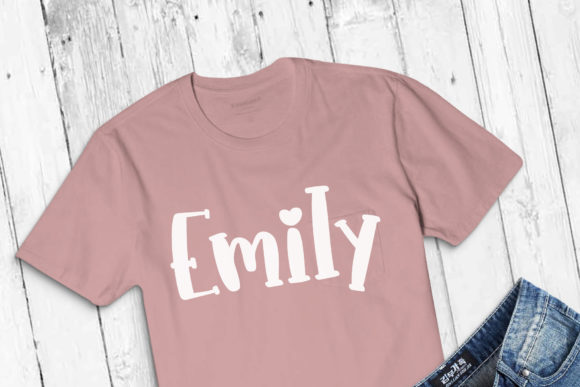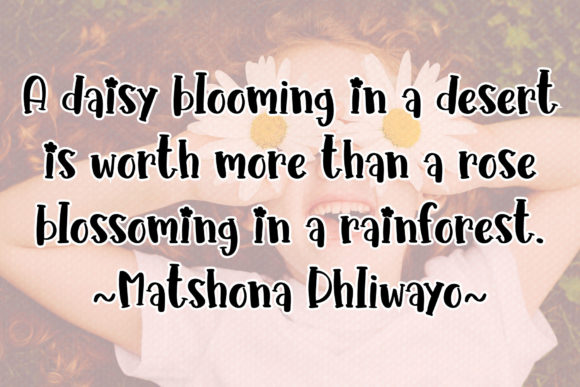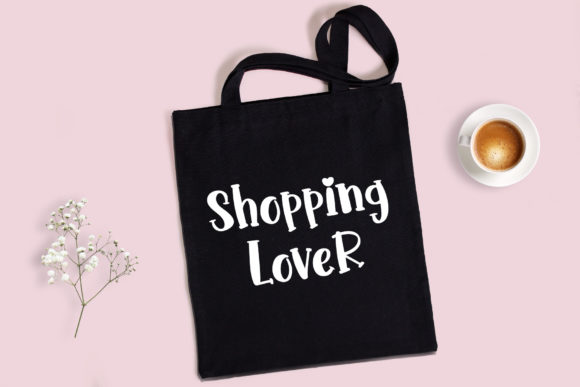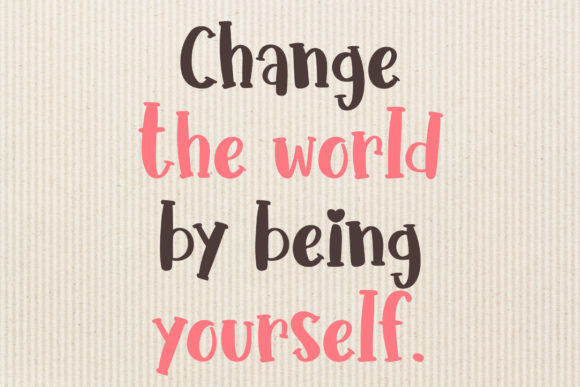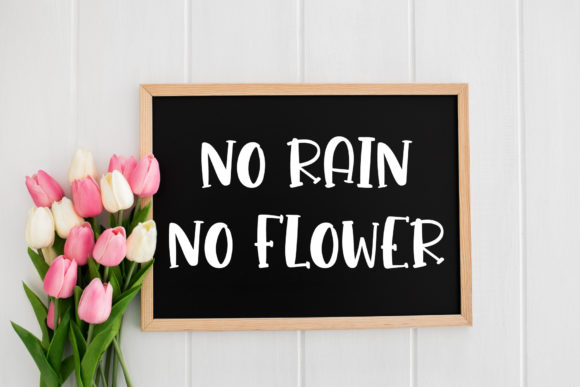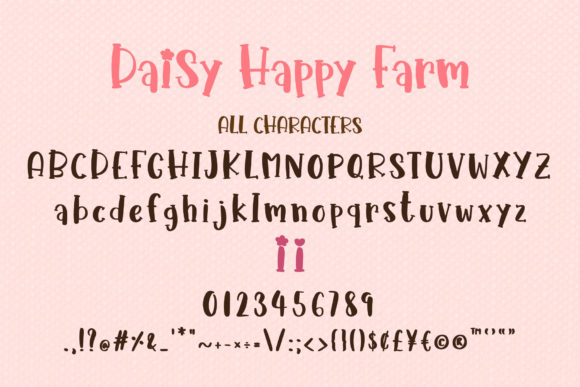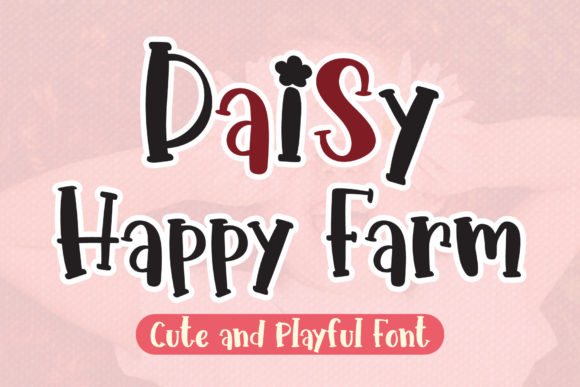
Daisy Happy Farm Font: The Perfect Addition to Your Design Toolbox
Are you a designer or crafter looking for a font that can add a touch of playfulness and quirkiness to your projects? Look no further than the Daisy Happy Farm font! This adorable serif font is perfect for creating logos, branding materials, posters, and DIY projects that require a friendly and approachable feel.
What Makes Daisy Happy Farm Font So Special?
Daisy Happy Farm is a cute and friendly serif font that is designed to bring a smile to your face. Its playful and quirky style makes it an excellent choice for designers and crafters who want to add a personal touch to their work. Whether you’re creating a logo for a children’s brand, designing a poster for a craft fair, or working on a DIY project, this font is sure to delight.
Key Features of Daisy Happy Farm Font
• Playful and Quirky Style: The Daisy Happy Farm font has a unique and playful style that sets it apart from other fonts. Its quirky charm makes it perfect for projects that require a friendly and approachable feel.
• Serif Font: As a serif font, Daisy Happy Farm has a classic and timeless look that works well for a variety of design projects.
• Easy to Read: Despite its playful style, the Daisy Happy Farm font is easy to read, making it perfect for use in body text, headings, and titles.
• Versatile: This font is versatile and can be used for a wide range of design projects, from logos and branding materials to posters, flyers, and DIY projects.
Uses for Daisy Happy Farm Font
The Daisy Happy Farm font is perfect for a variety of design projects, including:
• Logos and Branding: Create a memorable and playful logo for your business or brand with the Daisy Happy Farm font.
• Posters and Flyers: Use this font to create eye-catching posters and flyers for events, promotions, and products.
• DIY Projects: Add a personal touch to your DIY projects, such as handmade crafts, jewelry, and home decor, with the Daisy Happy Farm font.
• Crafting and Scrapbooking: This font is perfect for crafters and scrapbookers who want to add a playful touch to their projects.
Tips for Using Daisy Happy Farm Font
Here are a few tips for using the Daisy Happy Farm font effectively in your design projects:
• Pair with Other Fonts: Experiment with pairing the Daisy Happy Farm font with other fonts to create a unique and interesting look.
• Use for Headings and Titles: Use the Daisy Happy Farm font for headings and titles to add a playful touch to your design.
• Keep it Simple: Don’t be afraid to keep things simple and use the Daisy Happy Farm font on its own for a clean and elegant look.
The Daisy Happy Farm font is a versatile and playful font that is perfect for designers and crafters who want to add a touch of quirkiness to their projects. With its friendly and approachable style, this font is sure to delight. Whether you’re creating logos, branding materials, posters, or DIY projects, the Daisy Happy Farm font is an excellent choice. So why not give it a try and see how it can elevate your design projects?